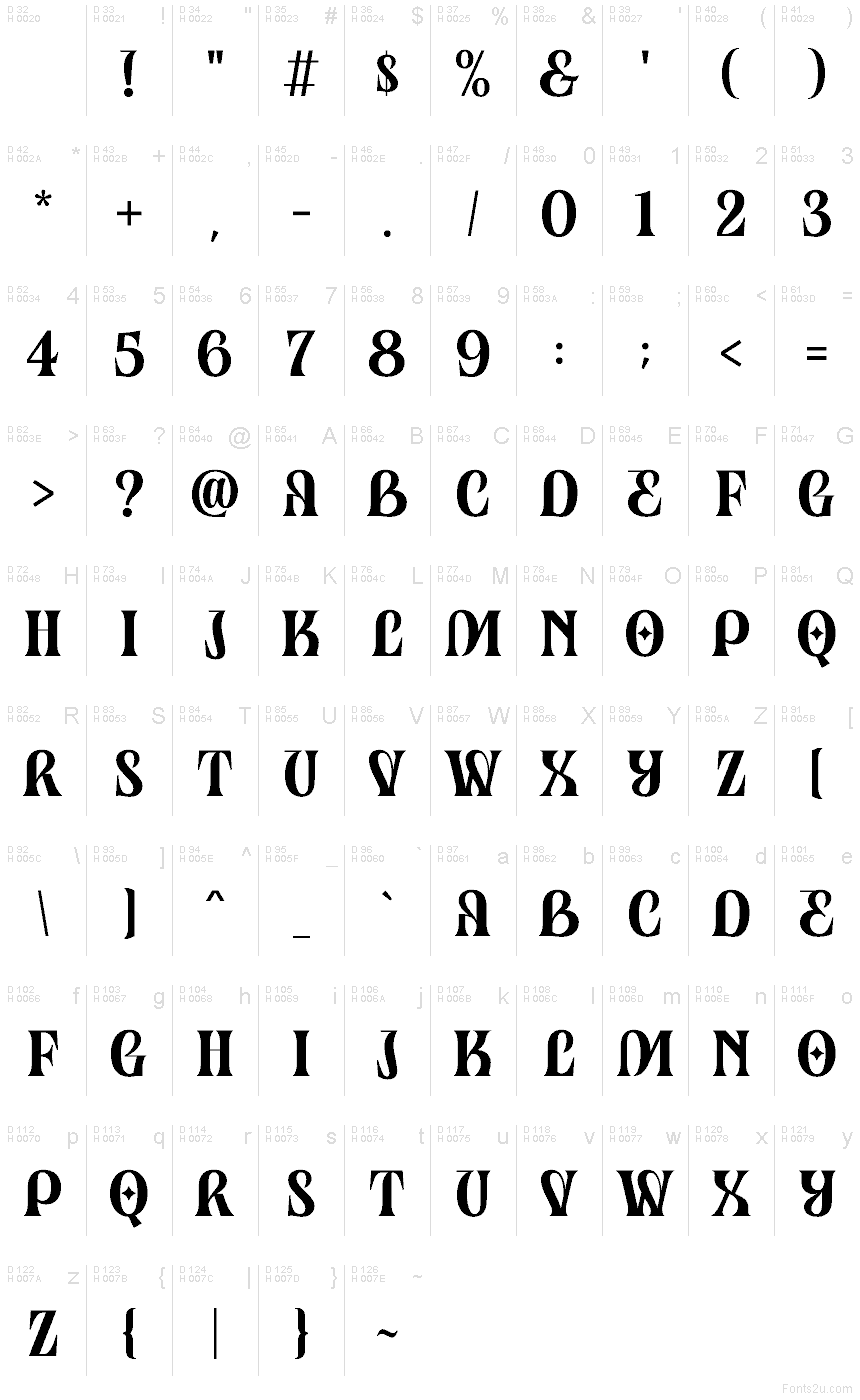
Drivez font by Kong Font blends dramatic flair with a luxurious feel, embodying vintage influences in its elegant display design. The artistic touch makes it not just eye-catching but also visually engaging, making it not only a functional element but an impressive visual centerpiece in any project.
This bold free display font is perfect for book covers, magazine covers, movie poster titles, social media designs, or product packaging. It’s well designed for advertisement designs and branding projects. Use it for your logo designs and website headers among other possibilities.